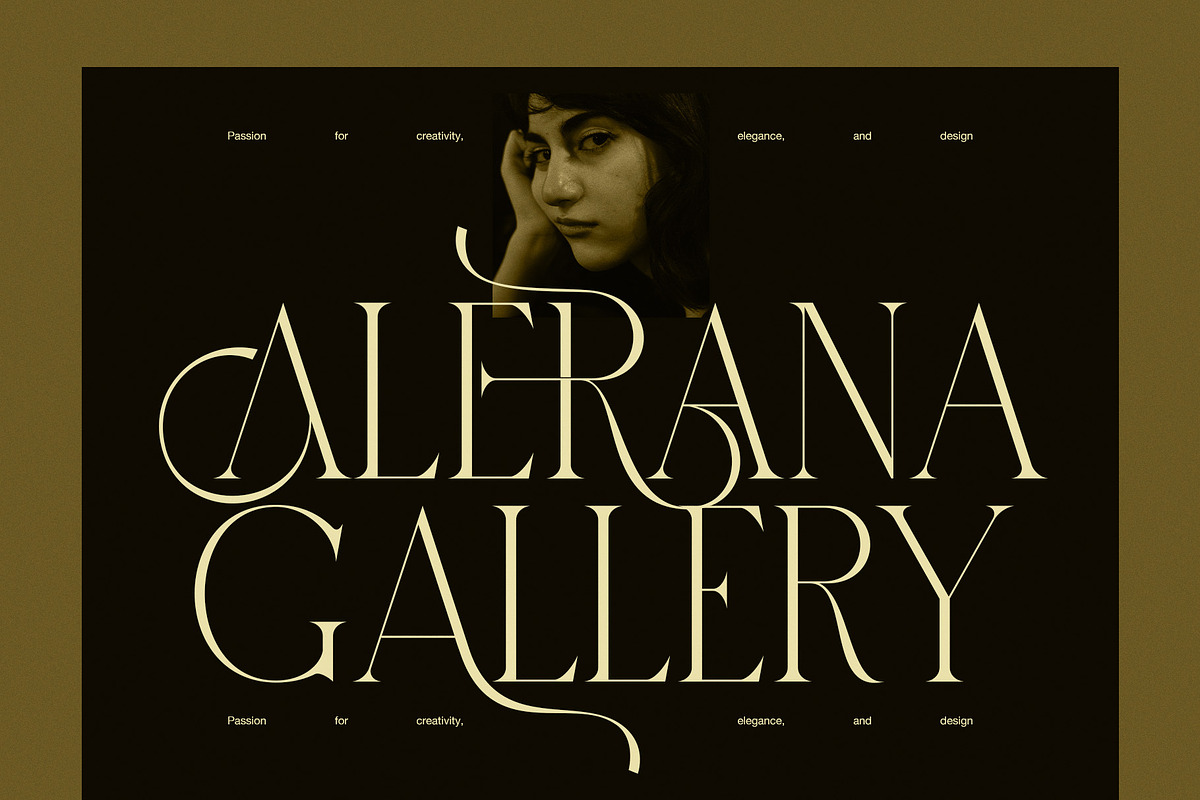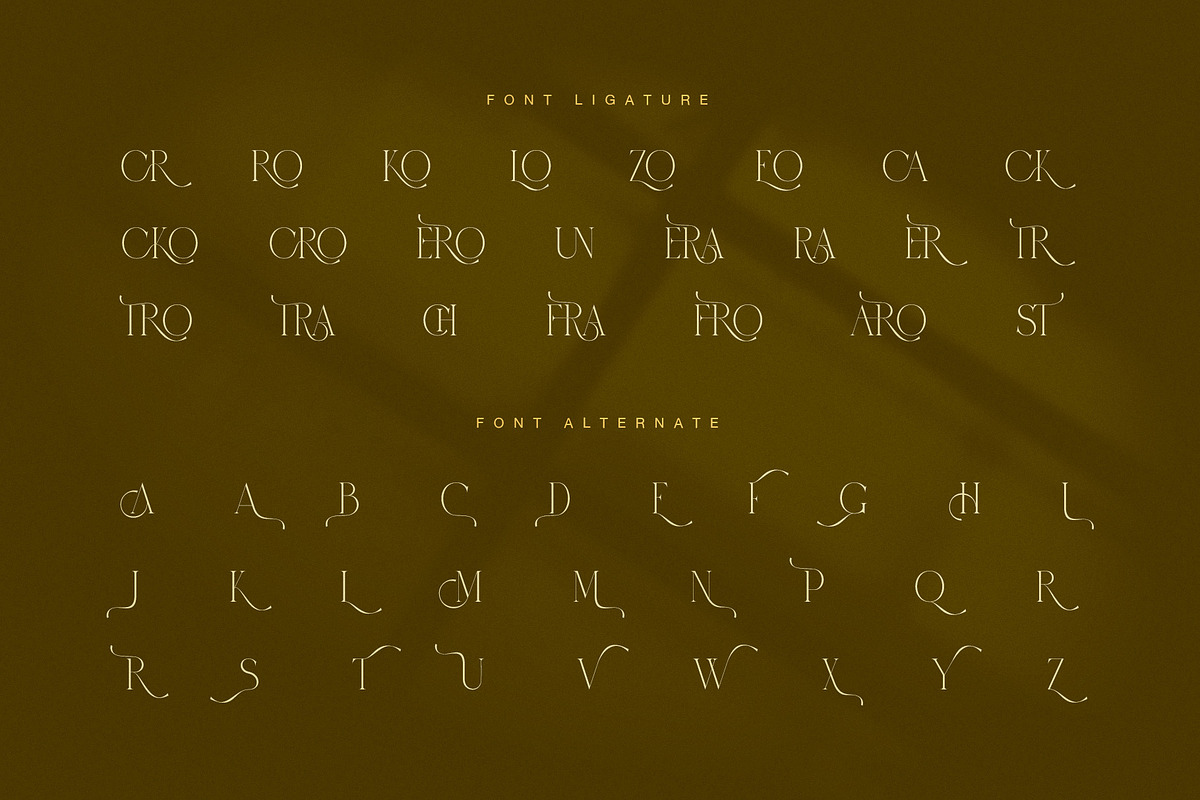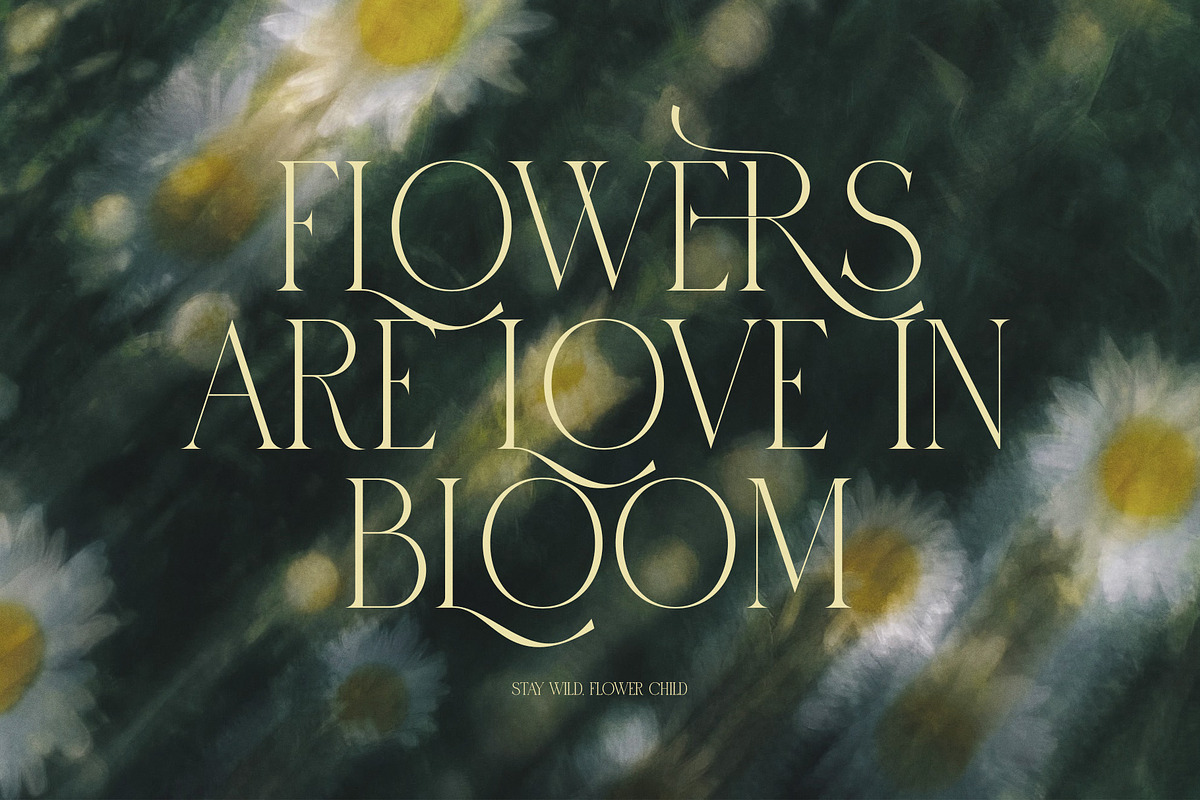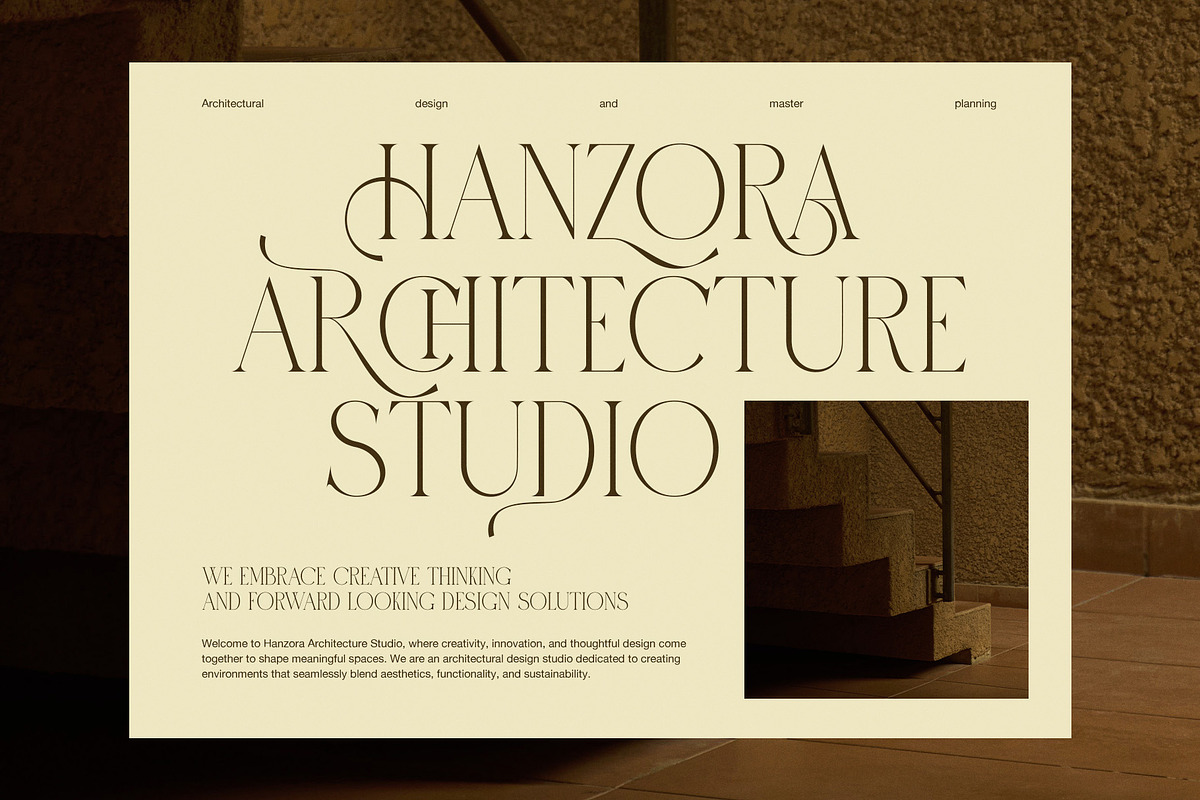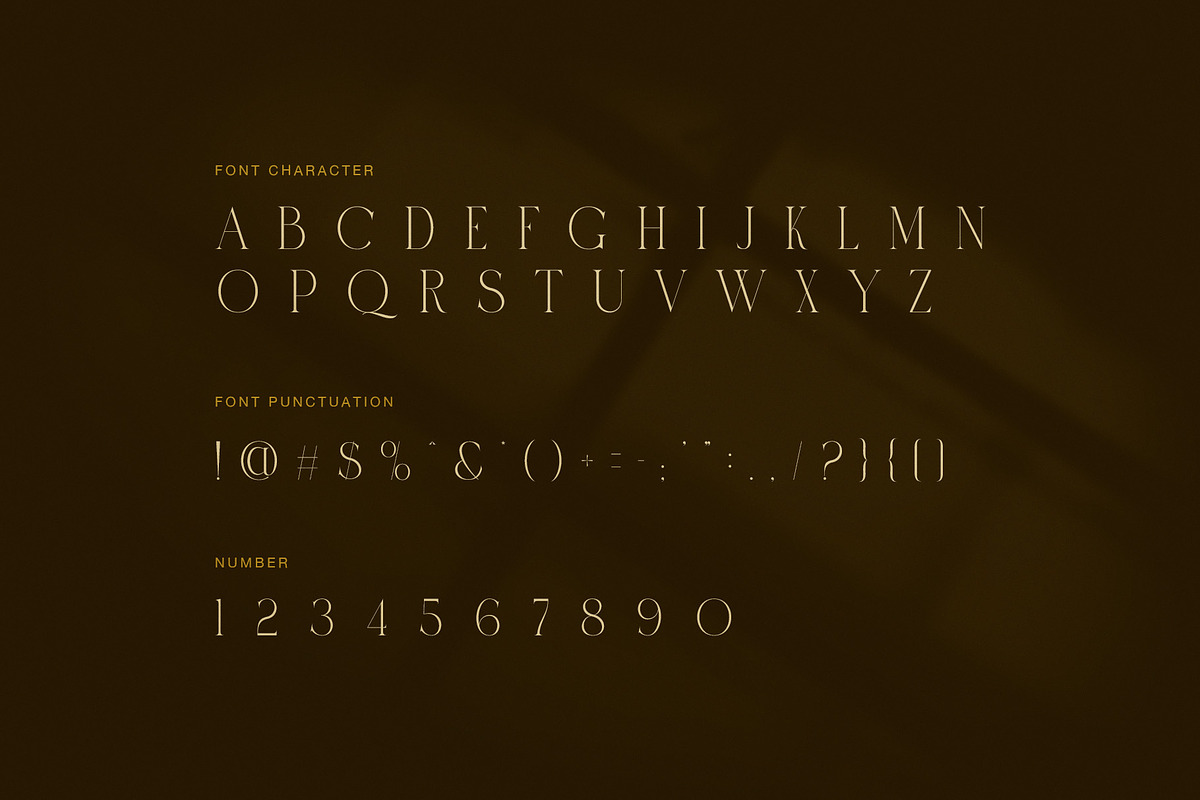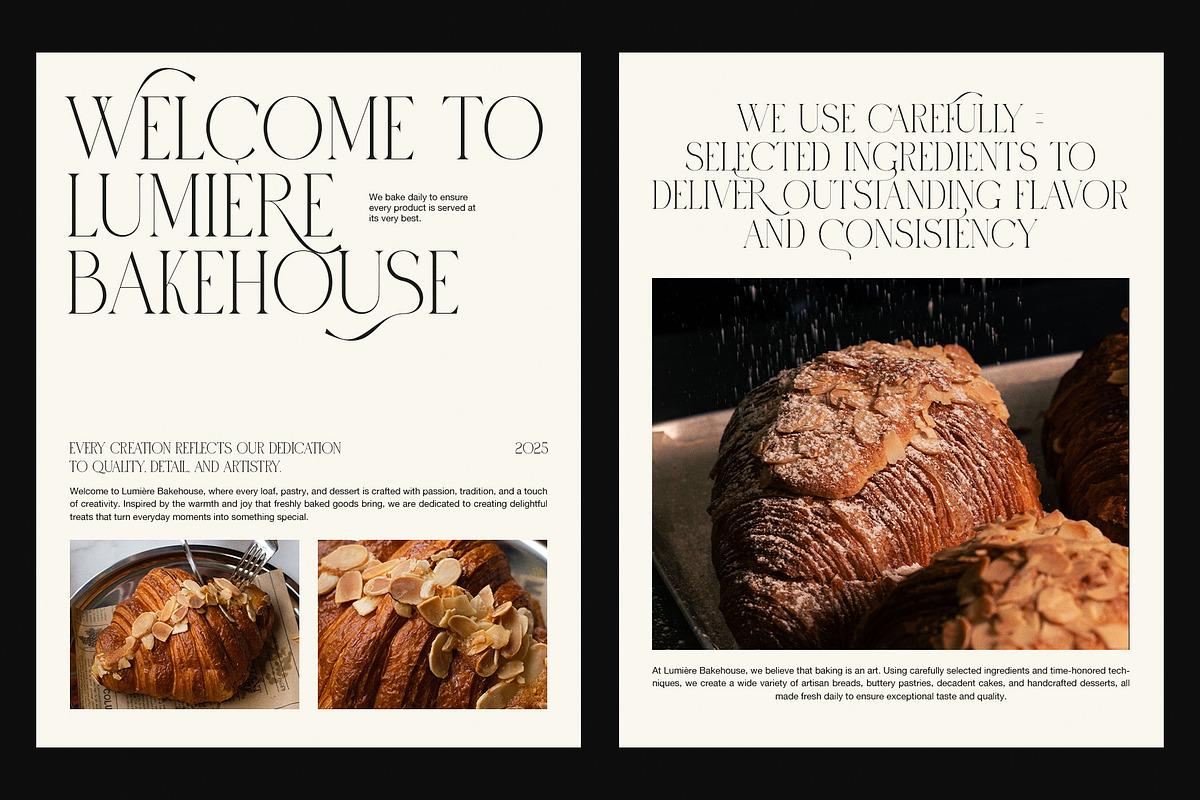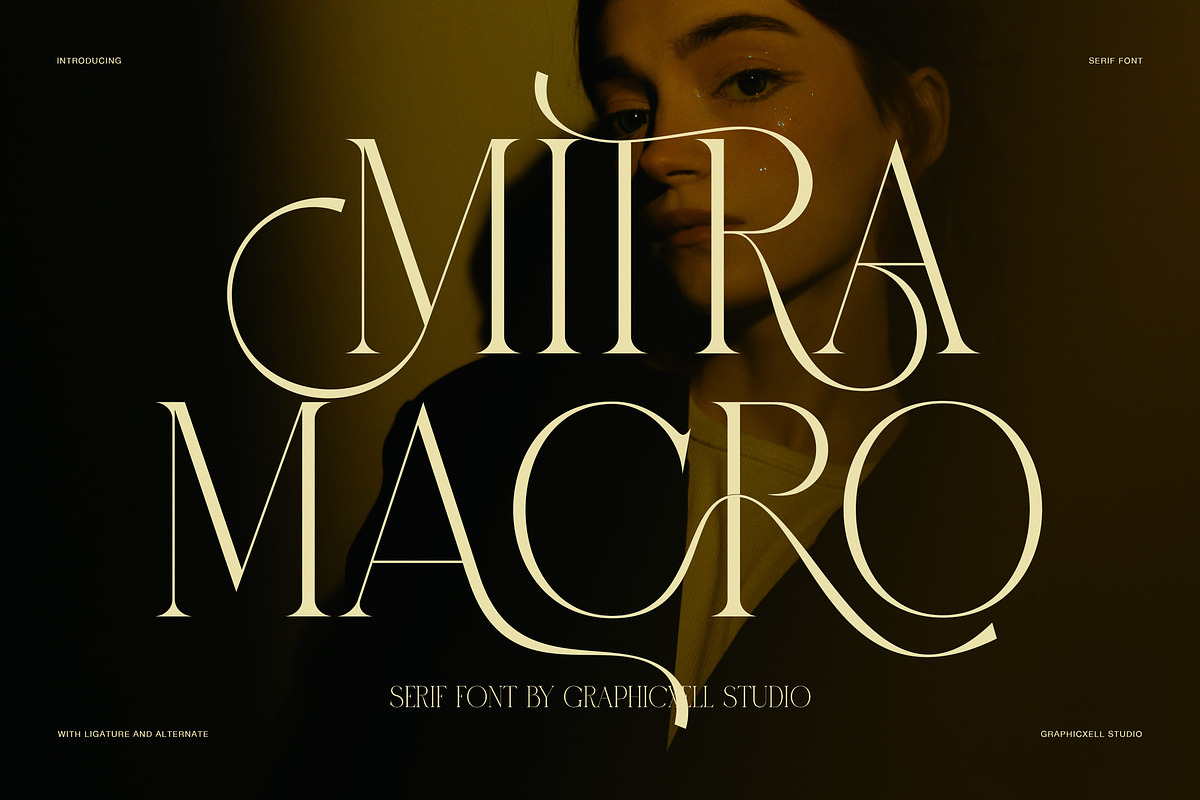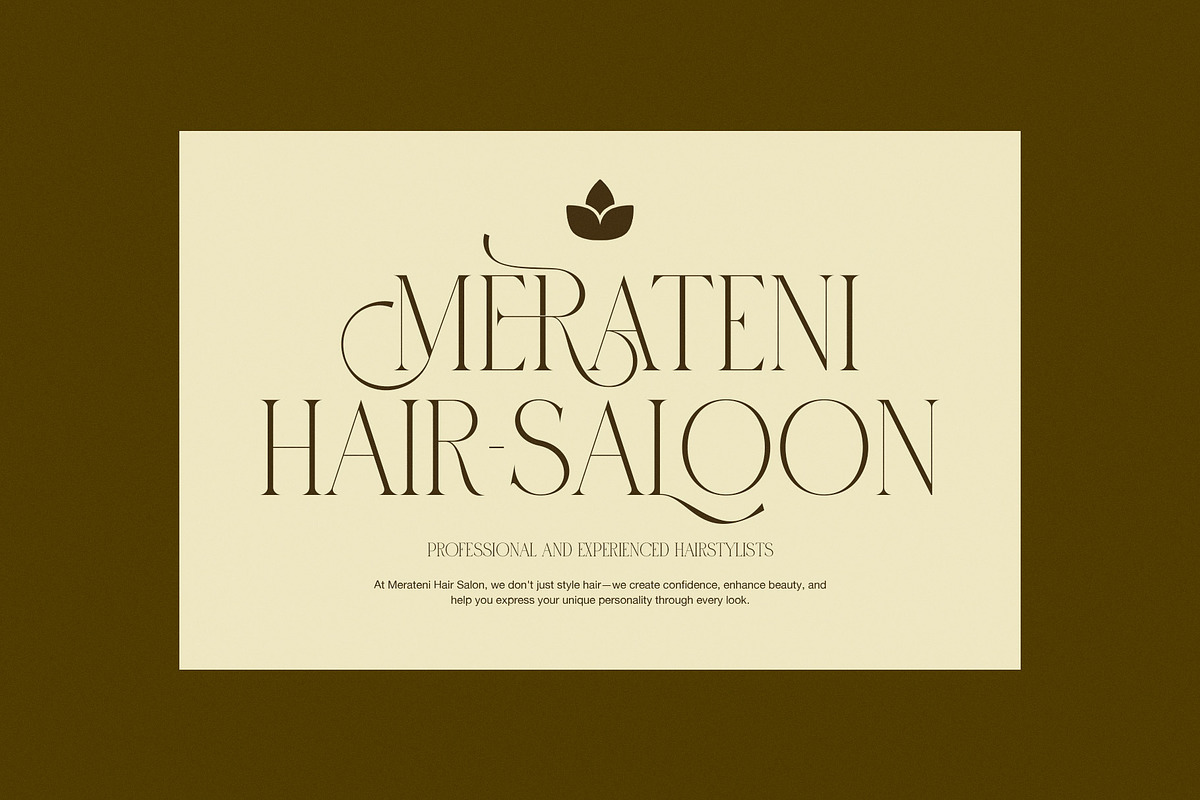
Mitra Macro Luxury Ligature Serif
Mitra Macro Luxury Ligature Serif is an elegant display typeface with refined letterforms and artistic ligatures. It blends timeless beauty with modern sophistication. Inspired by luxury editorials and premium branding, this serif font creates striking typography. Every headline feels graceful, balanced, and memorable.
The font features slim proportions and high-contrast strokes. Decorative ligatures add smooth connections between selected letters. Meanwhile, alternate characters provide more creative freedom. Therefore, you can craft unique logos, headlines, and brand identities with ease.
Mitra Macro is made for creative professionals who value elegance. It works perfectly for fashion brands, luxury packaging, jewelry collections, and cosmetic products. In addition, it suits wedding invitations, restaurant menus, architecture presentations, and premium magazines. Every design gains a polished and professional appearance.
Unlike many classic serif fonts, Mitra Macro introduces refined decorative details. However, the design never feels excessive. Instead, it remains clean, balanced, and highly readable. As a result, the font performs beautifully in both print and digital projects.
The generous spacing creates an elegant reading experience. Furthermore, the graceful curves help every letter stand out. Large headlines reveal the finest details, while shorter text remains attractive and clear. Consequently, the font delivers excellent visual impact across many creative applications.
Main Features
Elegant luxury serif design
Decorative ligatures for refined typography
Beautiful alternate characters
High-contrast display letterforms
Fashion-inspired appearance
Perfect for logos and branding
Editorial and magazine ready
Ideal for luxury packaging
Suitable for invitations and stationery
Clean spacing with excellent readability
Perfect for print and digital design
Timeless style for premium creative projects
Whether you build a luxury brand or design an editorial layout, Mitra Macro delivers lasting elegance. It combines classic inspiration with modern craftsmanship. Moreover, its graceful details create memorable typography. Its clean structure also keeps every composition easy to read. Therefore, this font is an excellent choice for designers who value beauty, flexibility, and timeless style. It helps every project look refined, premium, and unforgettable.